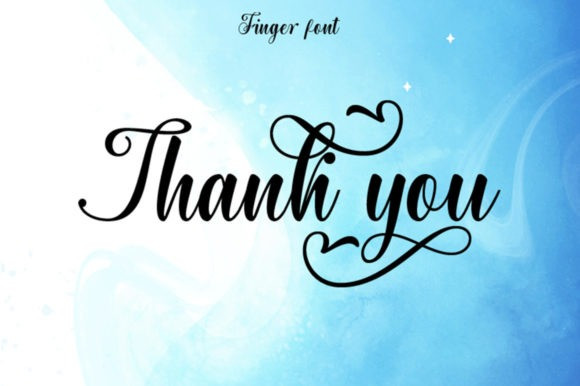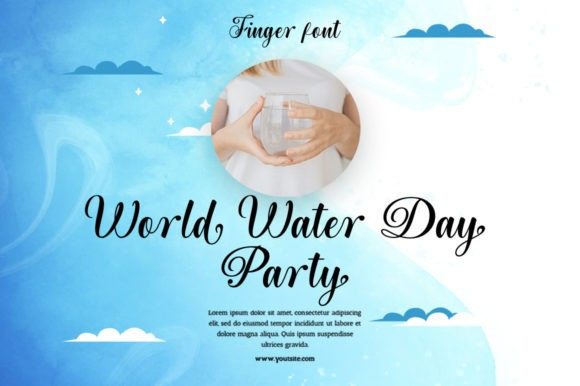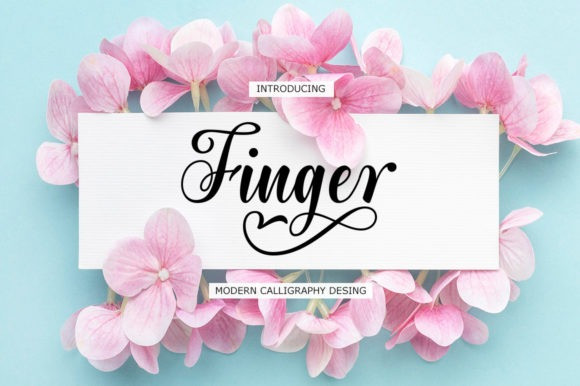
Finger Font
Finger Calligraphy Font is a beautiful and modern script font with starting and ending strokes. This font will make your designs look more elegant and aesthetic. Finger is PUA encoded which means you can access all of the glyphs and swashes with ease!